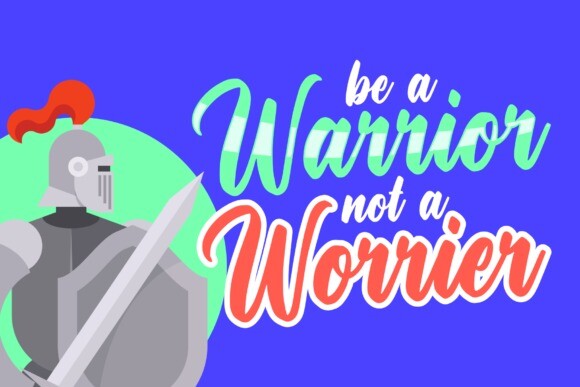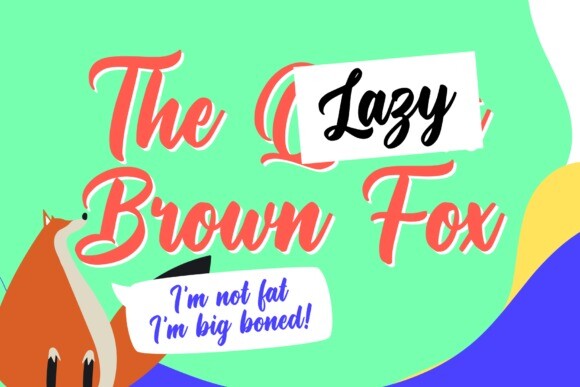
Haze Moerty Font
Haze Moerty is a bouncy and timeless handwritten font. It is the best choice for creating attractive logos, branding, clothing designs and quotes. Each letter adds a unique and beautiful touch to your design, bringing it to life with a classy, elegant look.